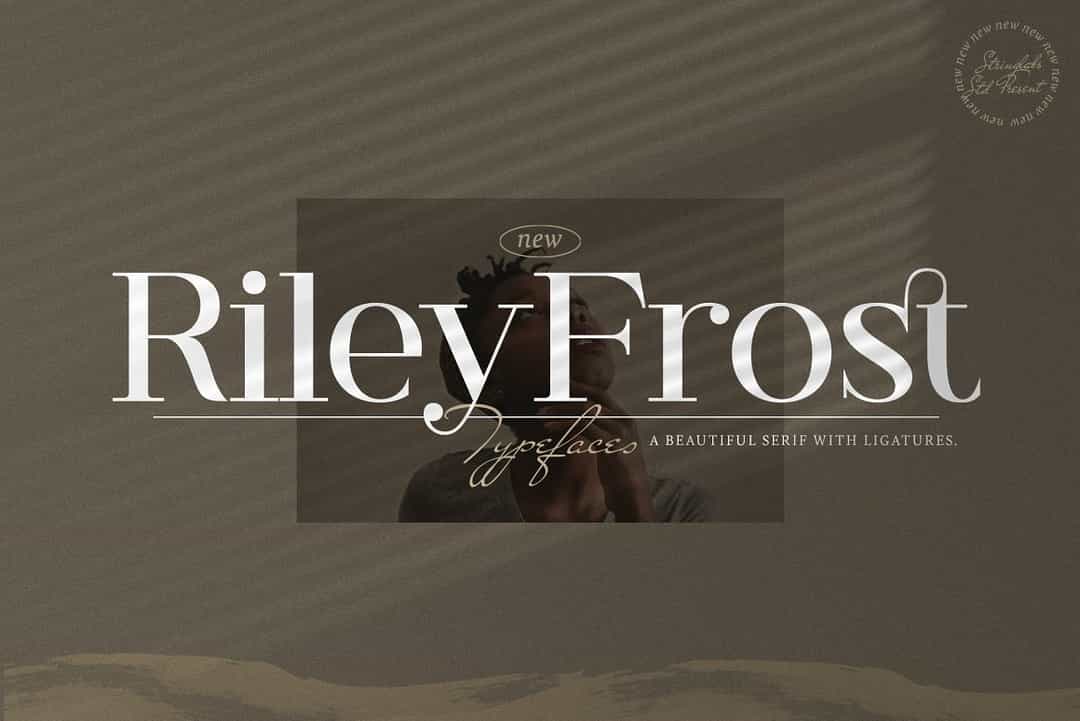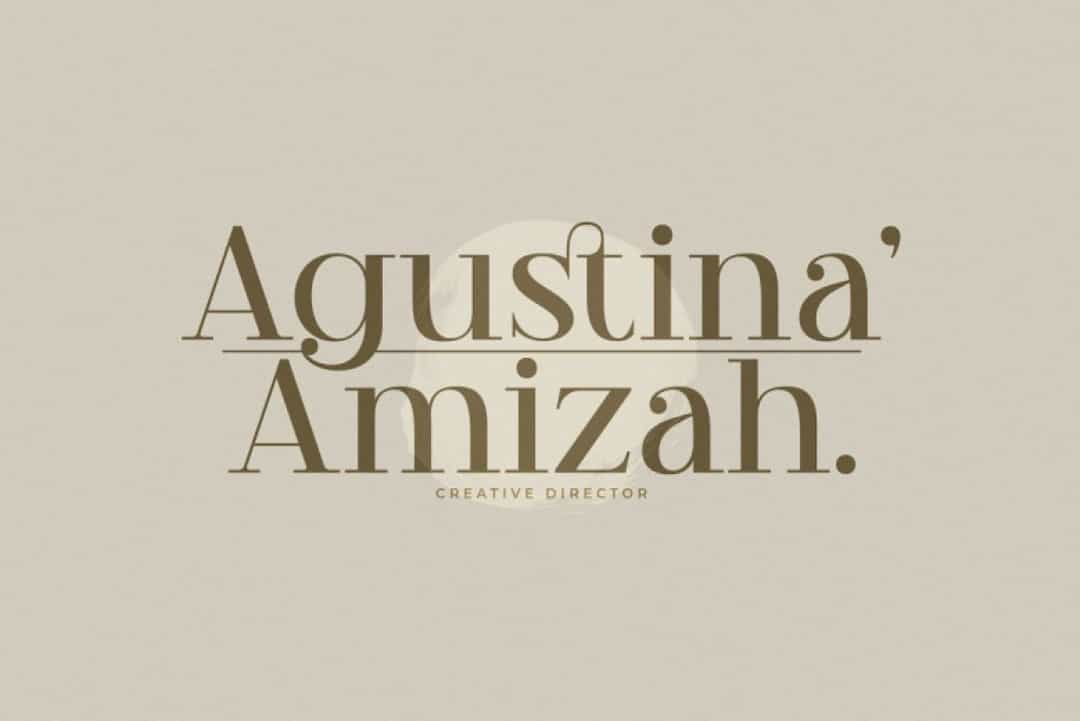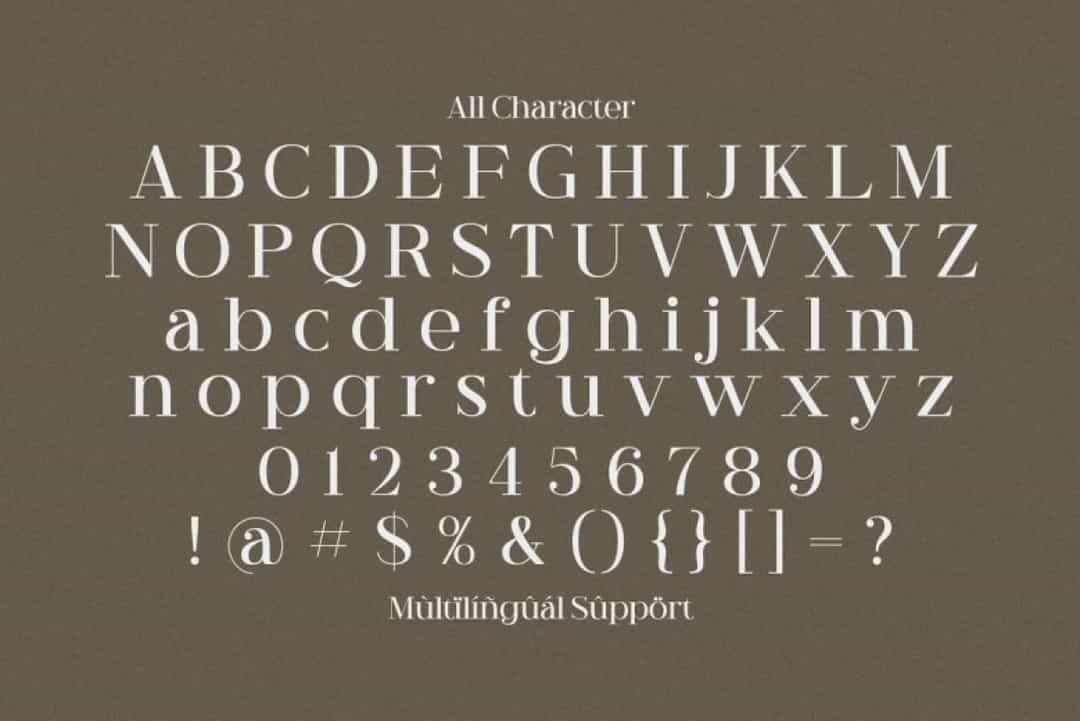
Riley Frost Casual is an eye-catching serif typeface, perfect for all sorts of creative projects and easily implemented into them. Experience its impact as you use it! It stands out among similar designs!